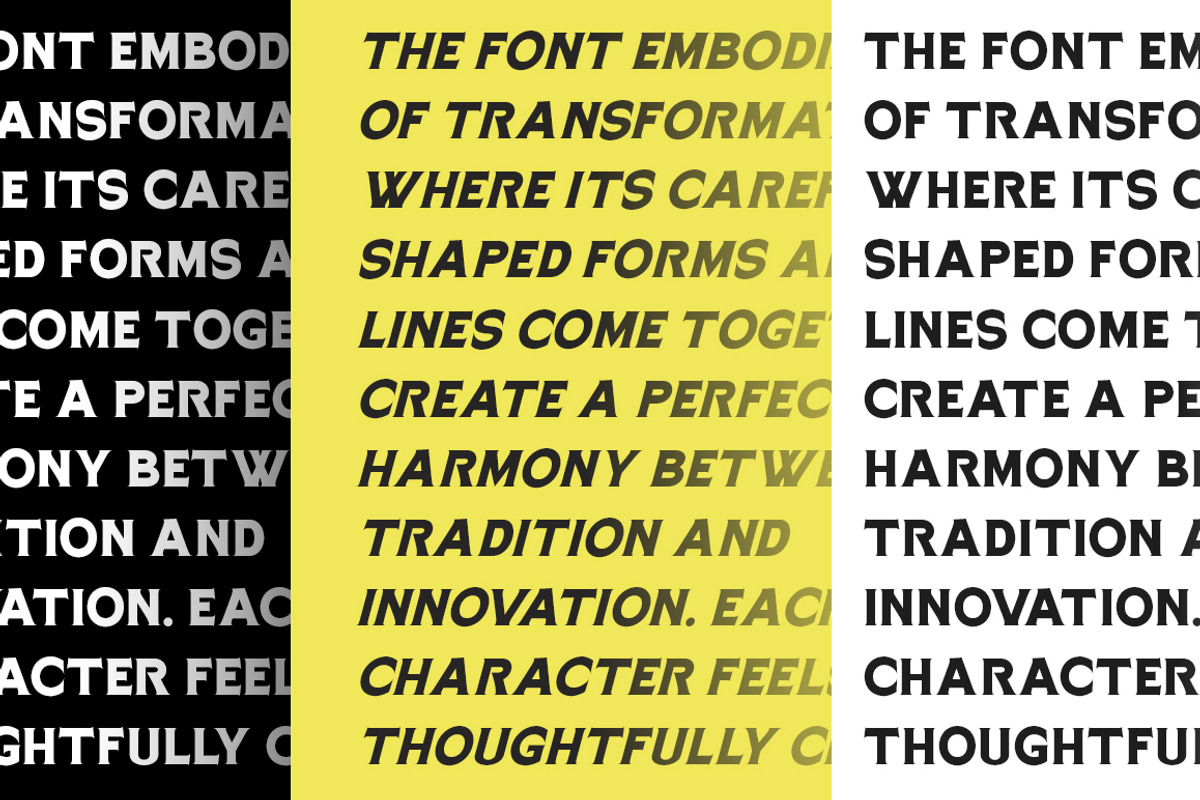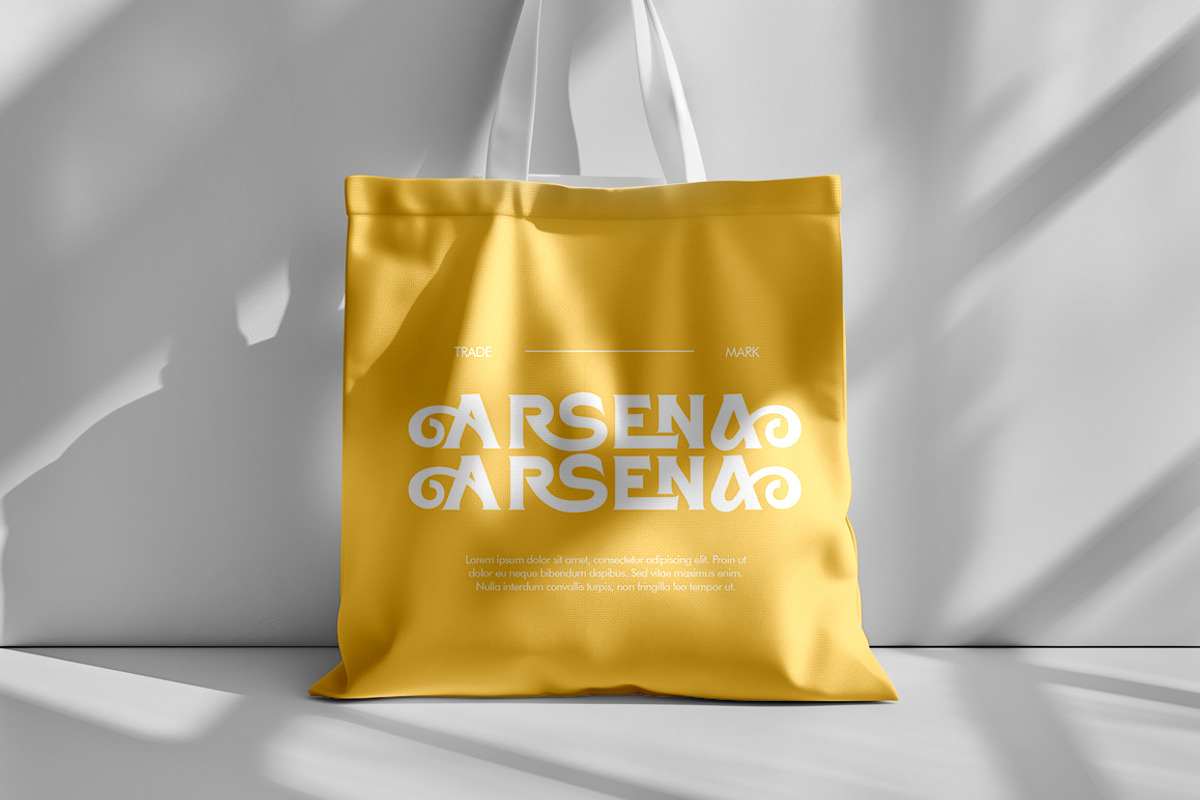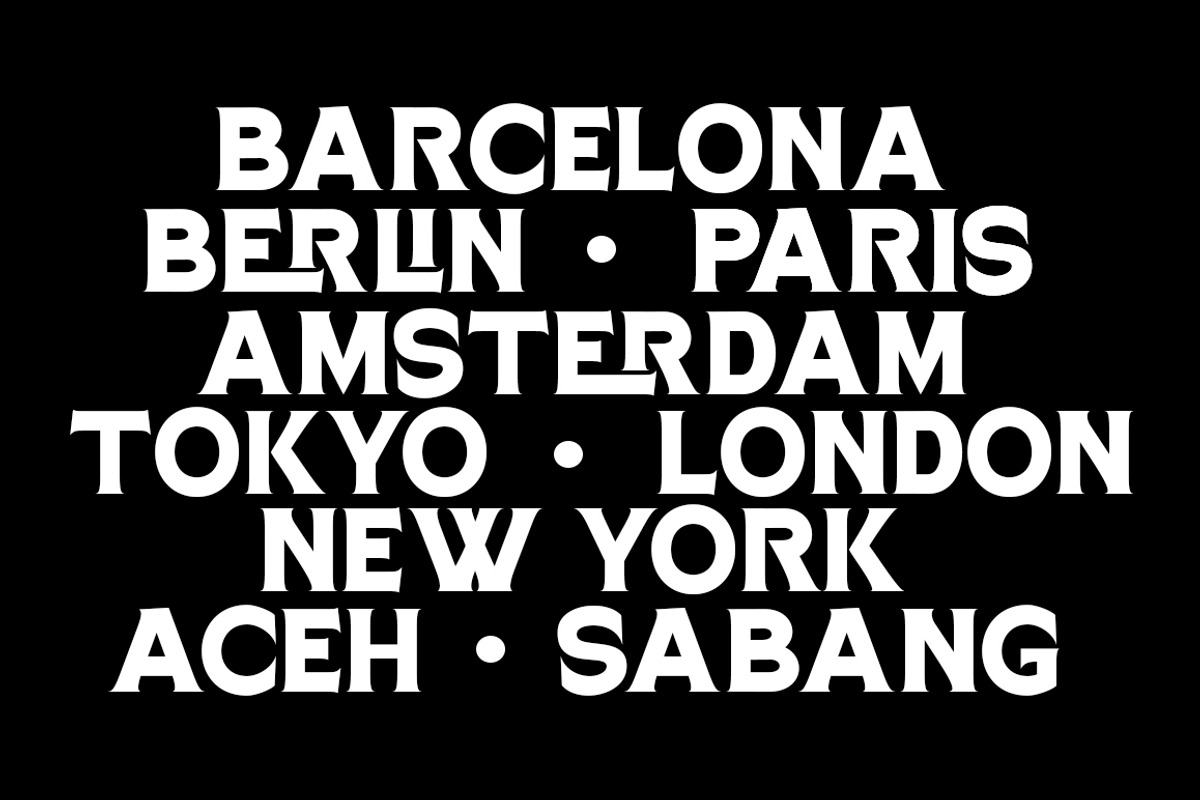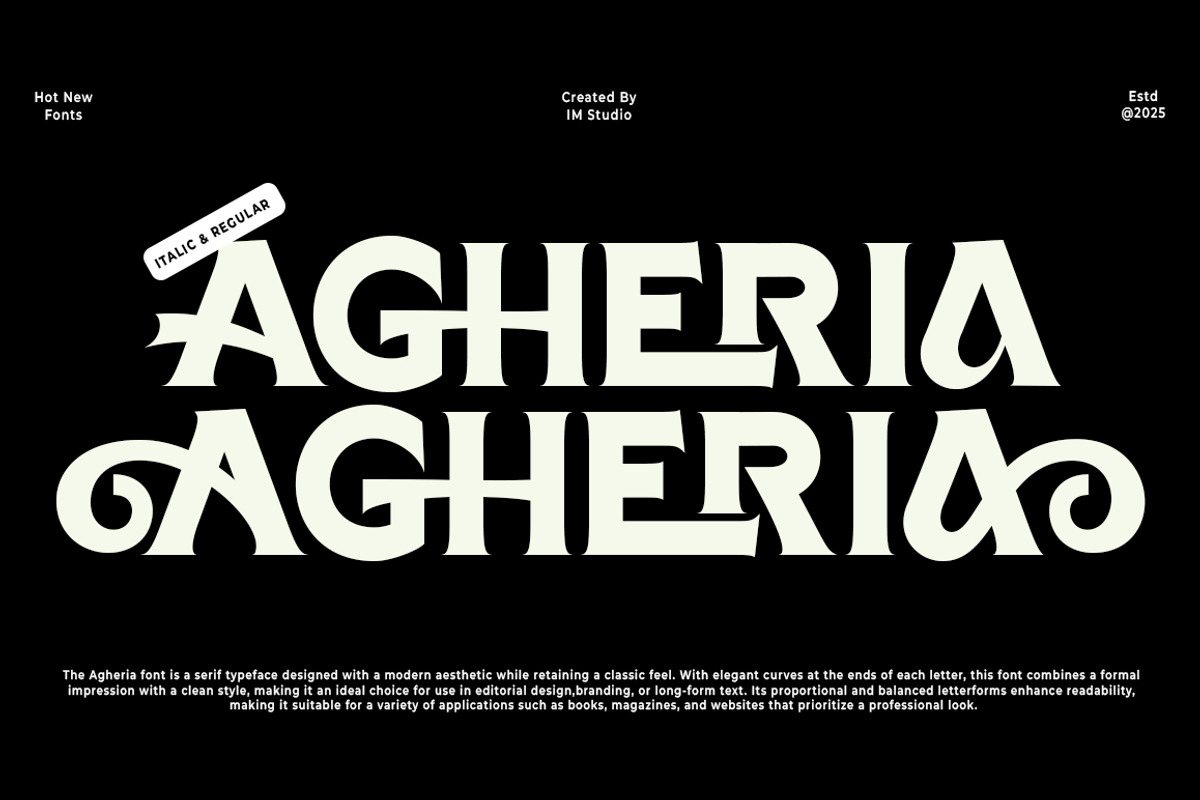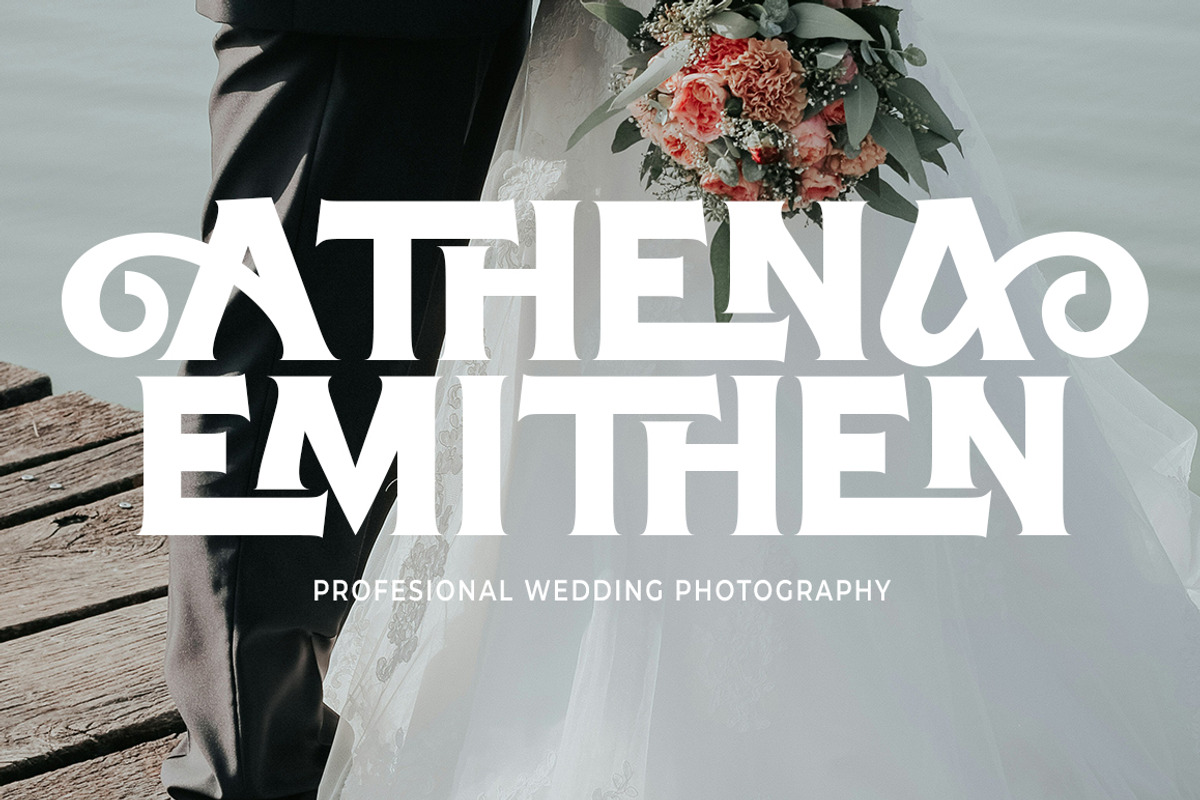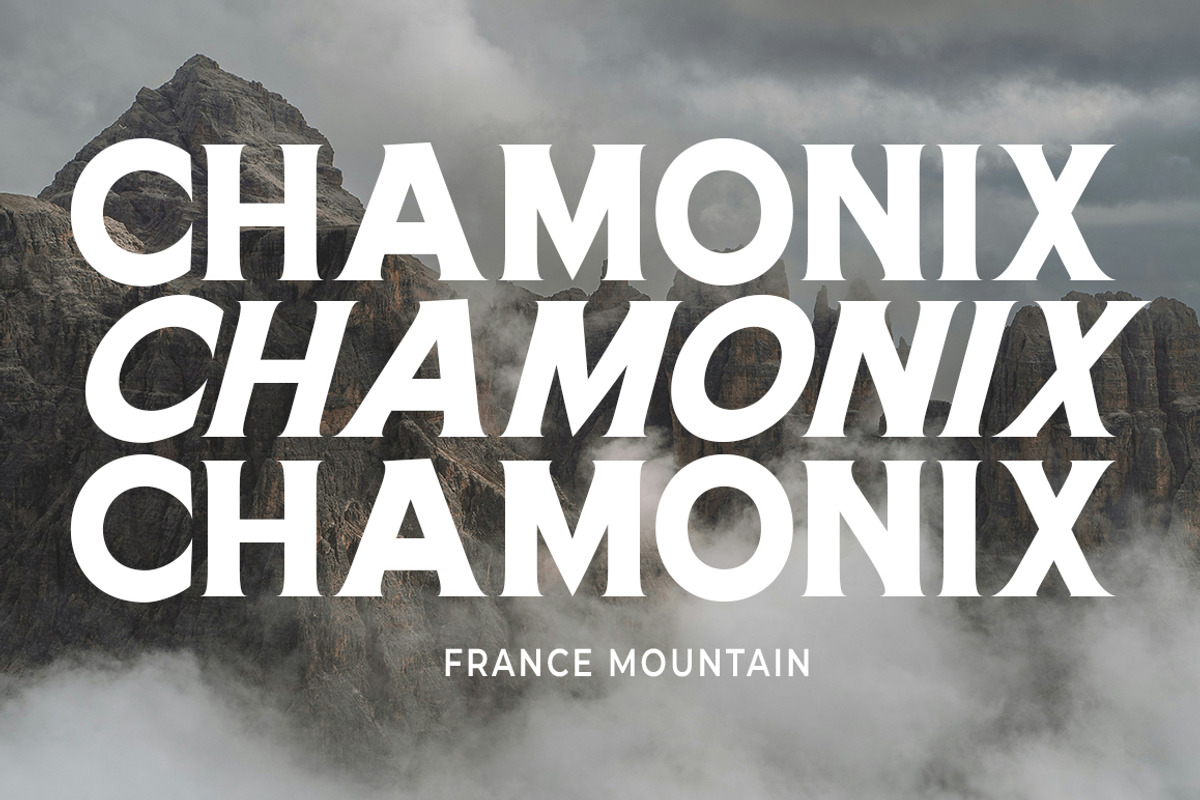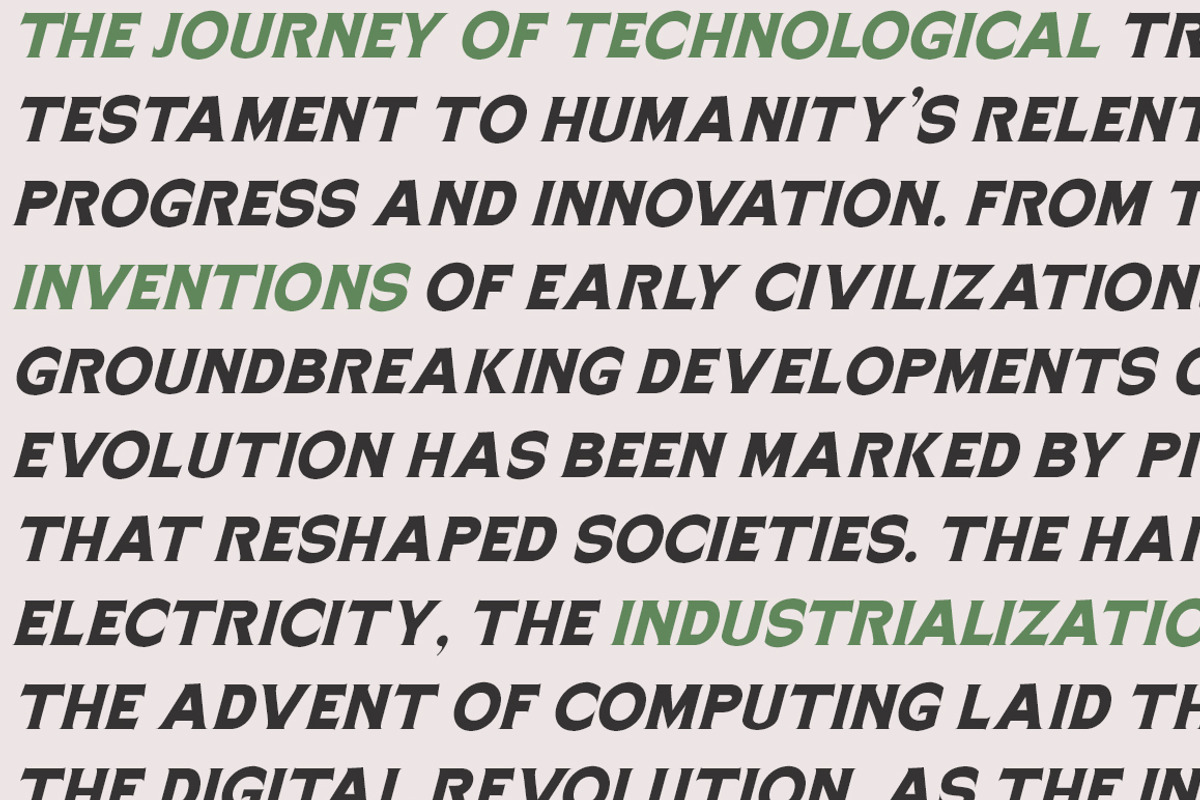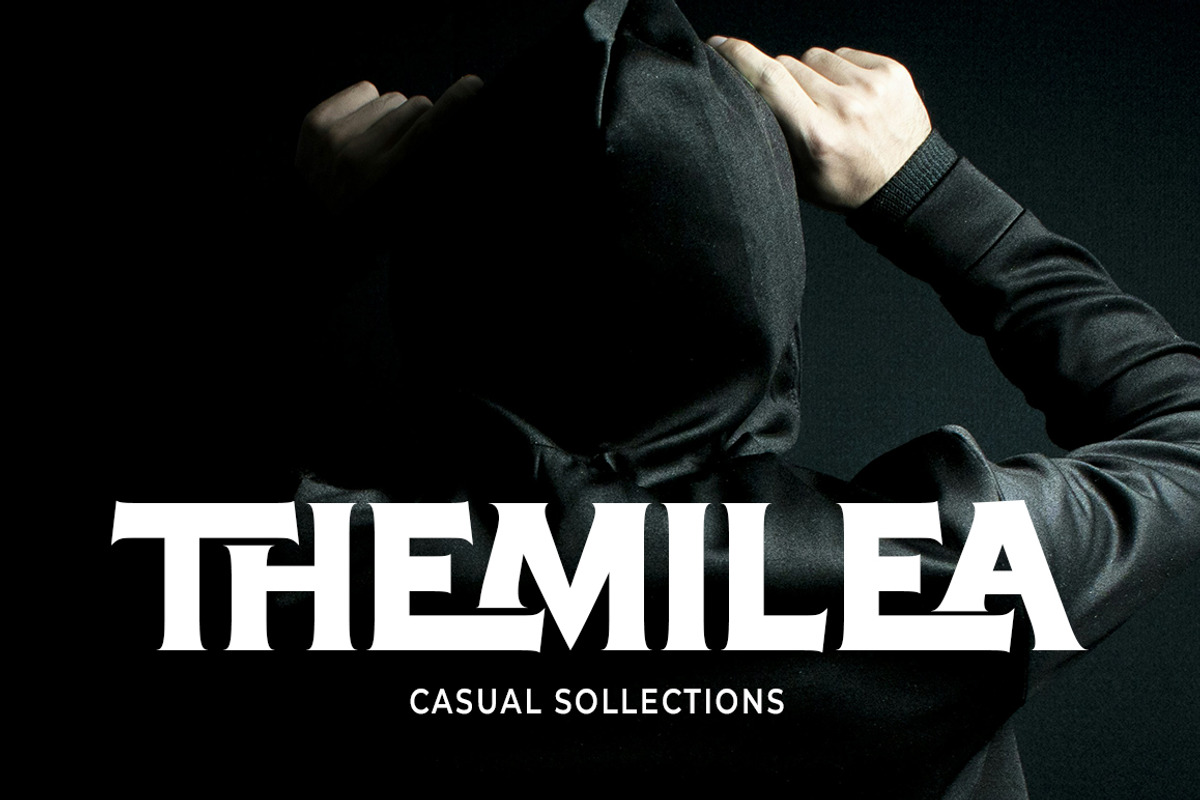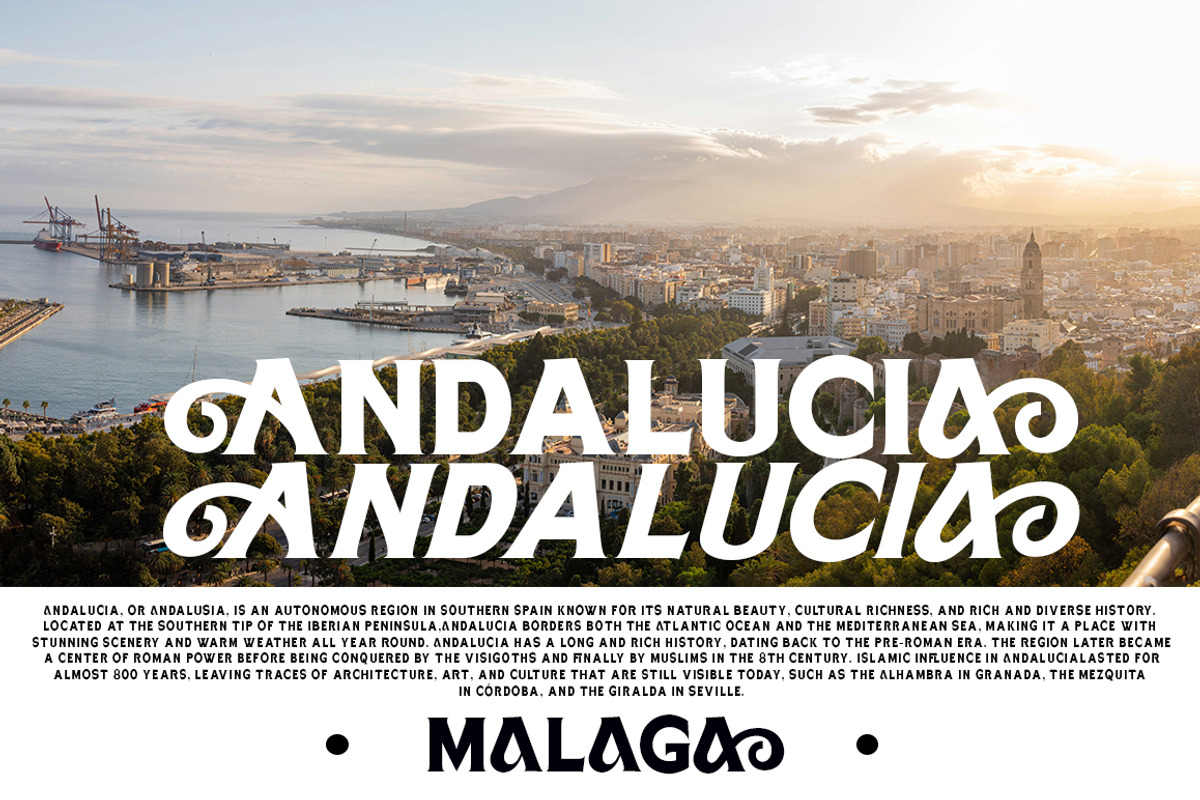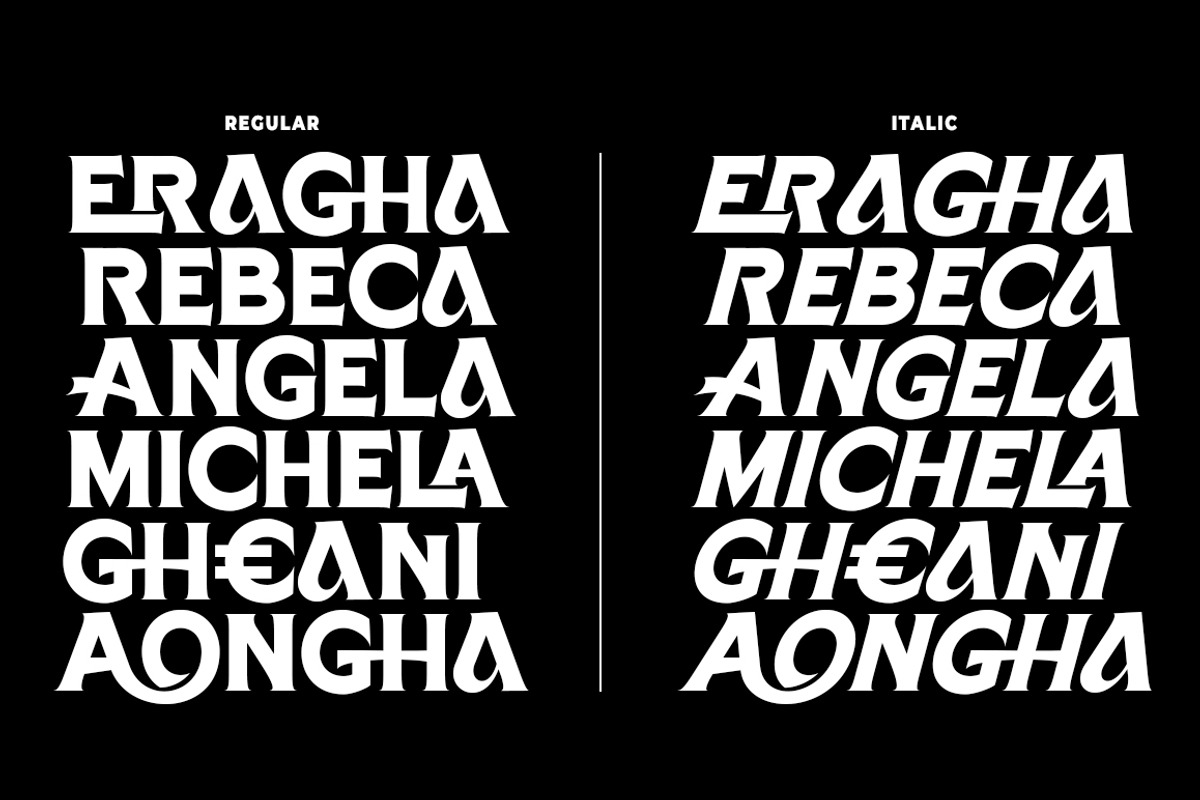
Agheria
Agheria is a retro bold font with a unique groovy touch, blending nostalgia with modern charm. Perfect for logos, posters, social media, and branding, it adds a special spark to your projects.
With a range of alternates and ligatures, Agheria offers endless possibilities for your designs, allowing you to express your unique vision.